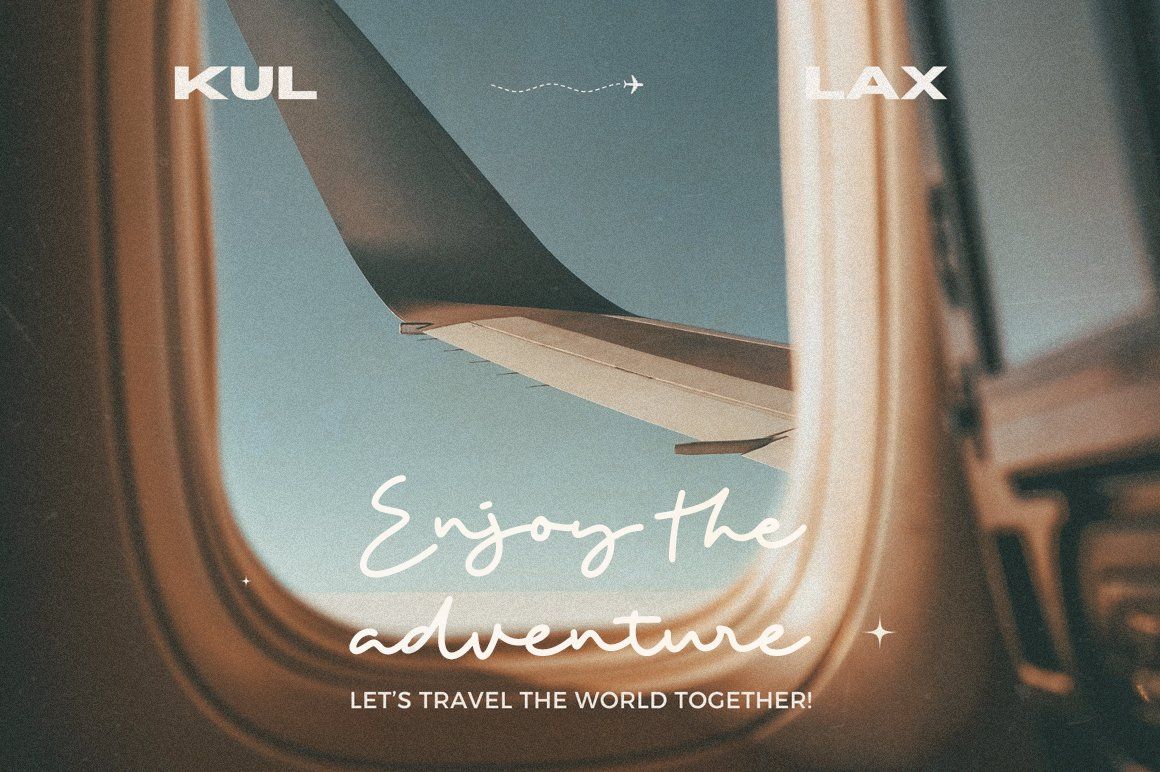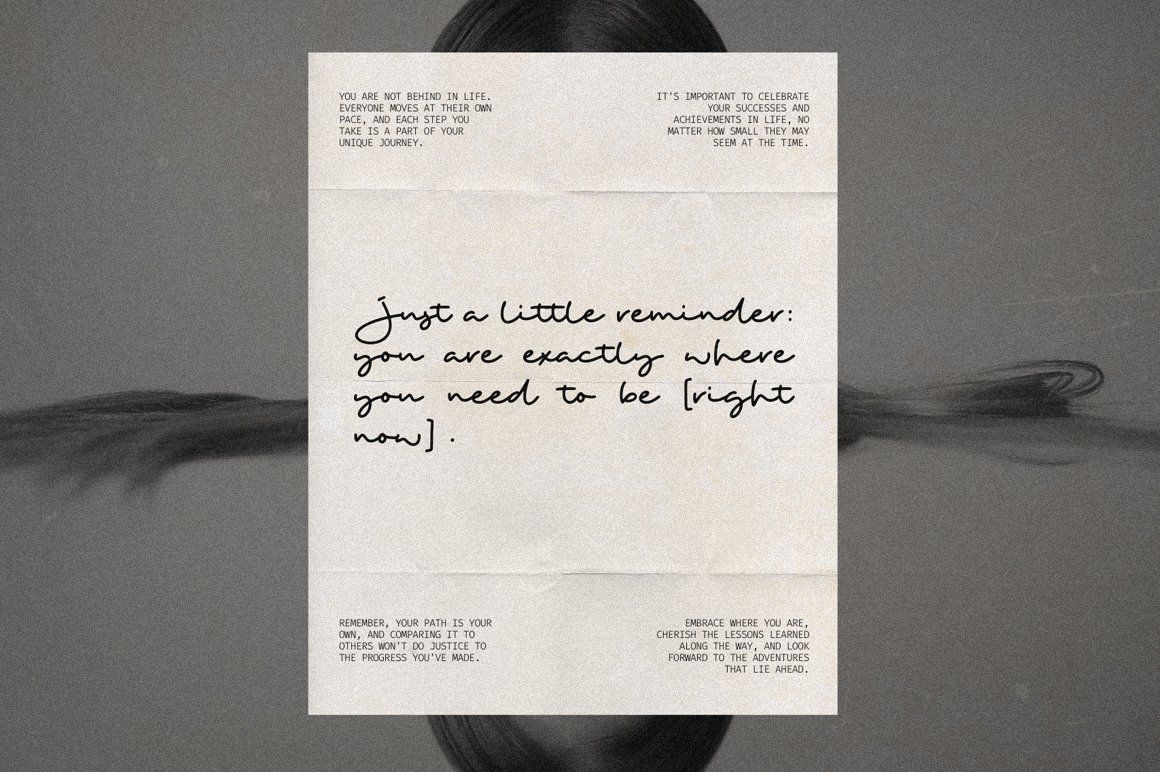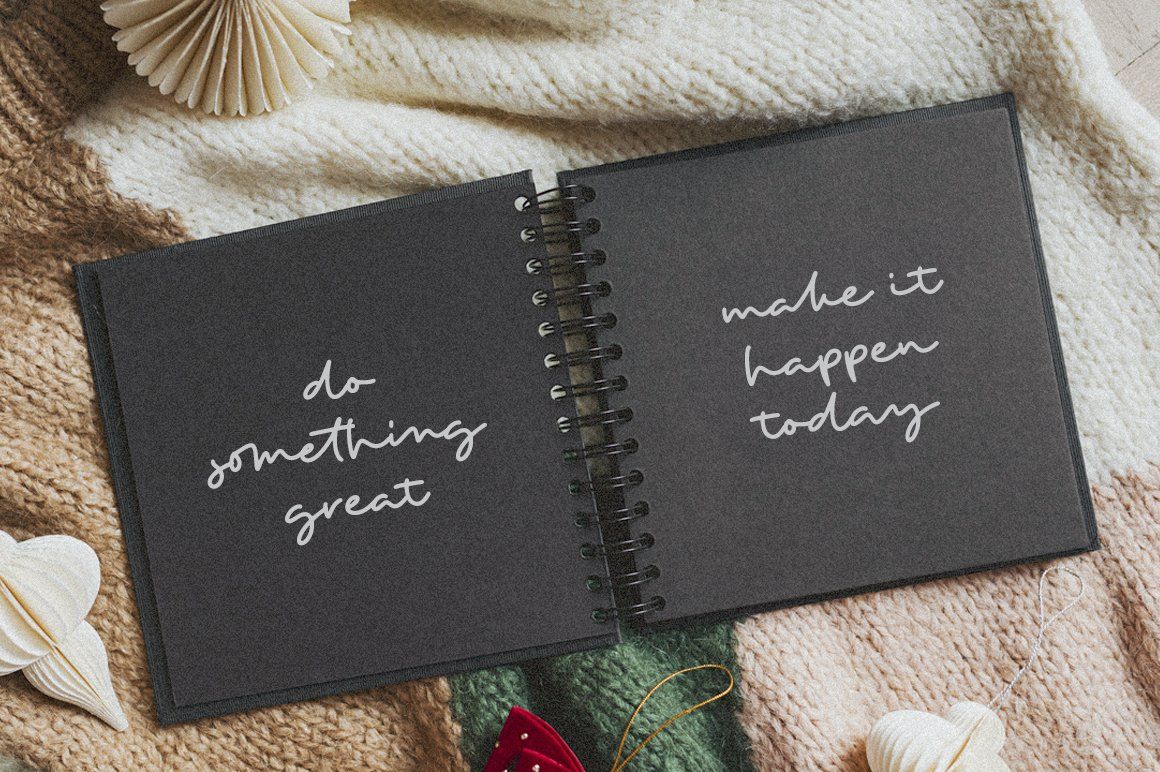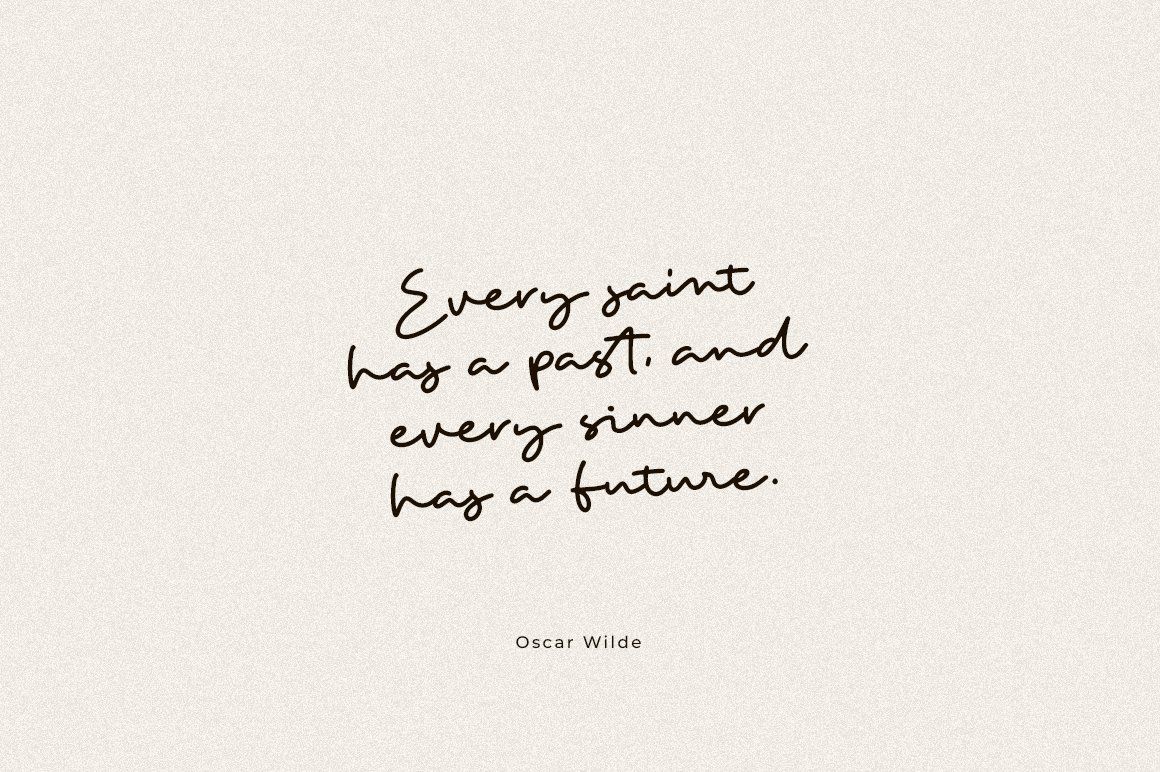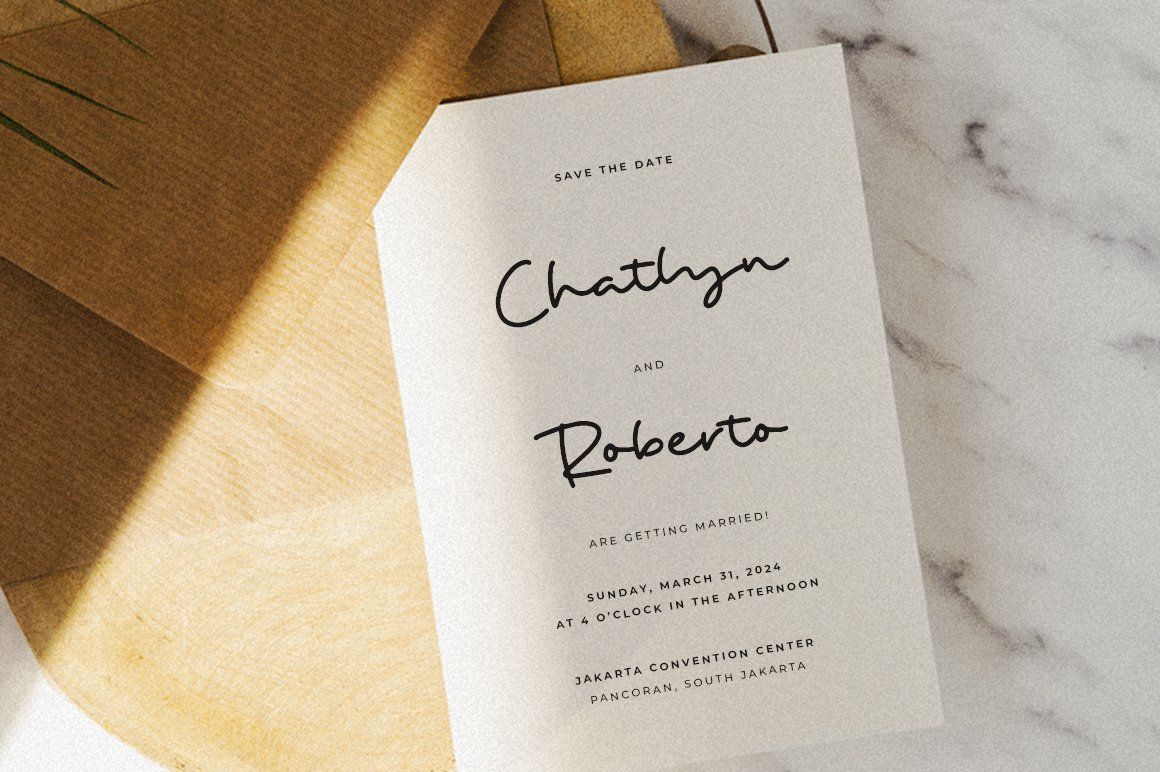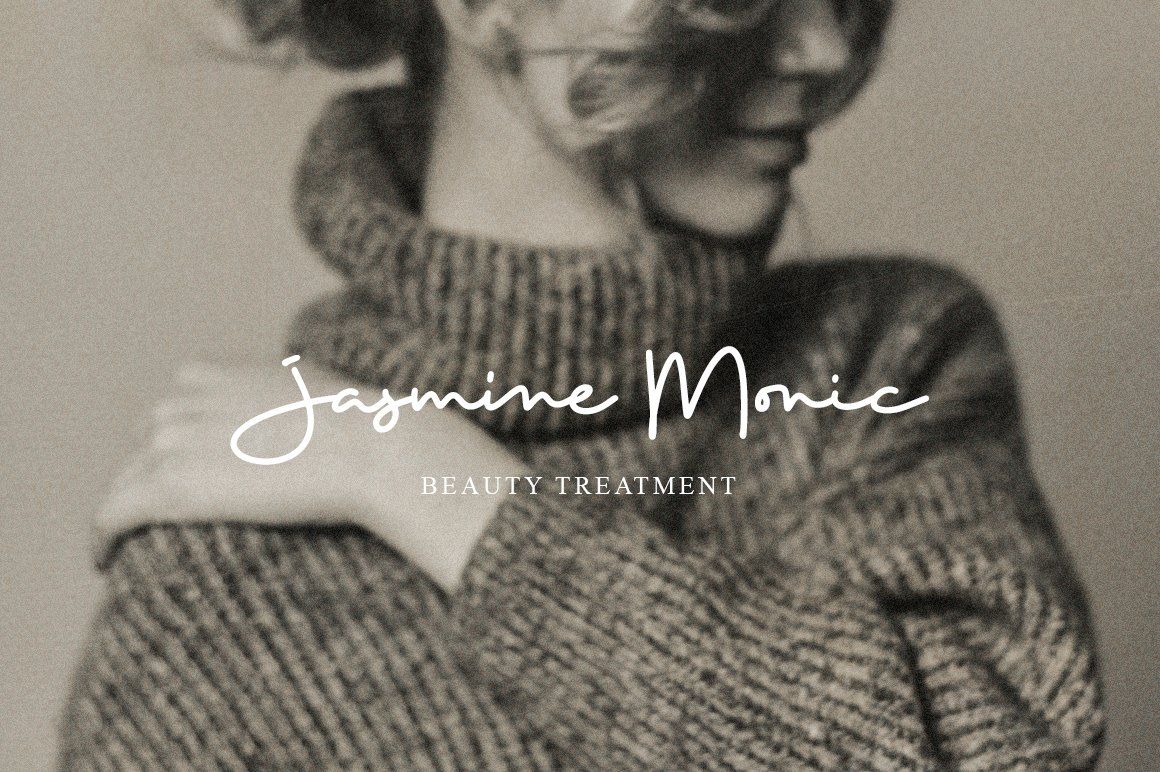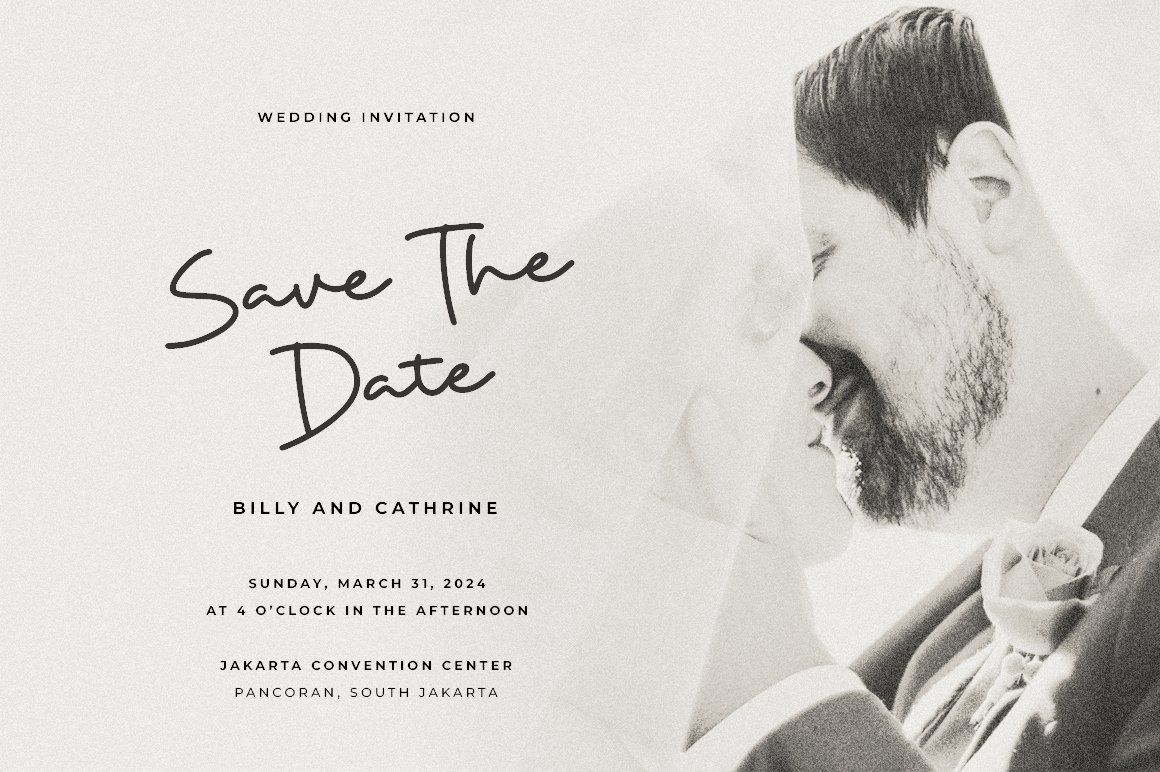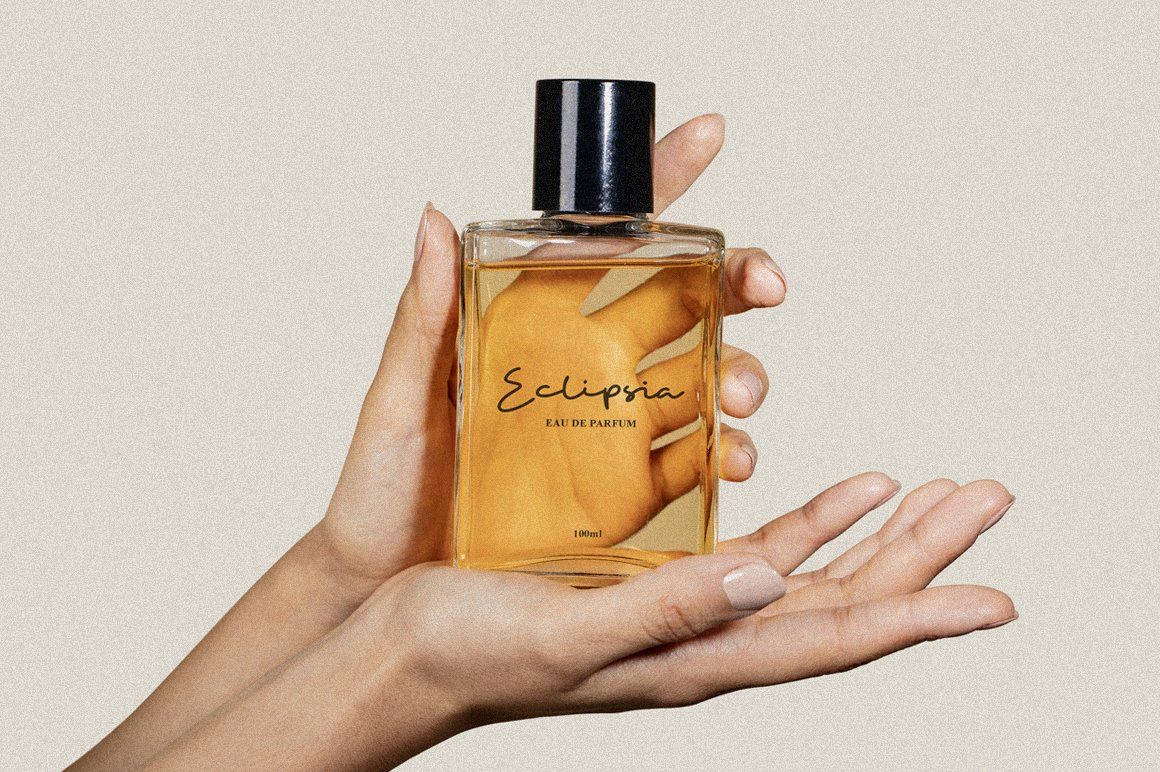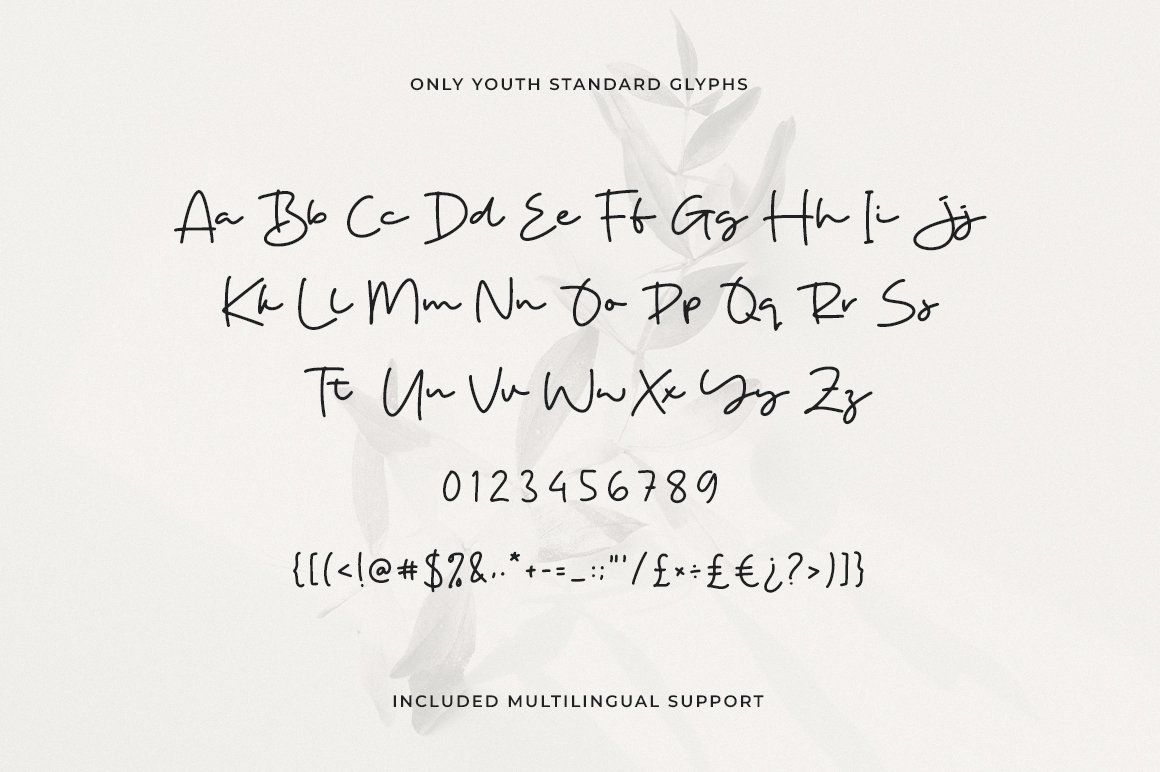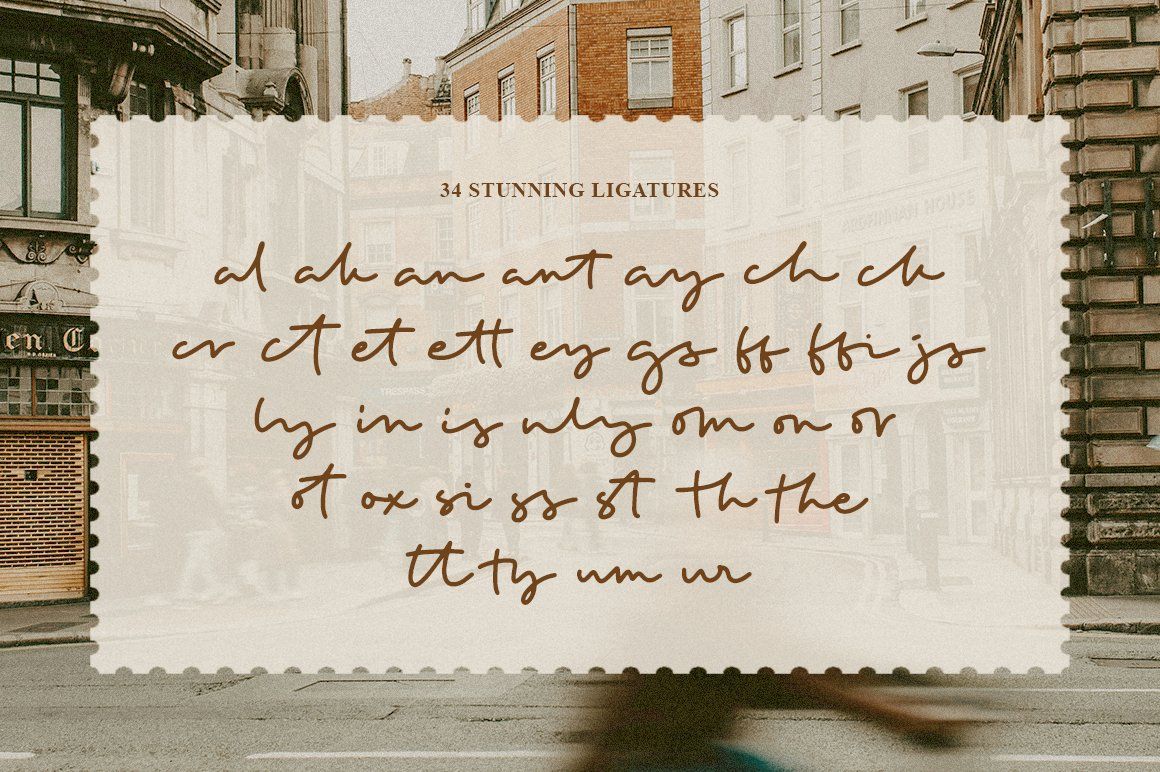
Only Youth is a signature handwritten font that captures the feeling of youth, freedom, and personal expression. Designed with smooth strokes and natural handwriting flow, this font delivers an authentic, modern signature style that feels warm and stylish. Only Youth is perfect for branding, logos, social media content, wedding designs, photography watermarks, quotes, and lifestyle projects that need a personal and elegant touch. With its clean yet expressive character, Only Youth adds charm and individuality to both digital and print designs, making your typography feel unique and memorable.